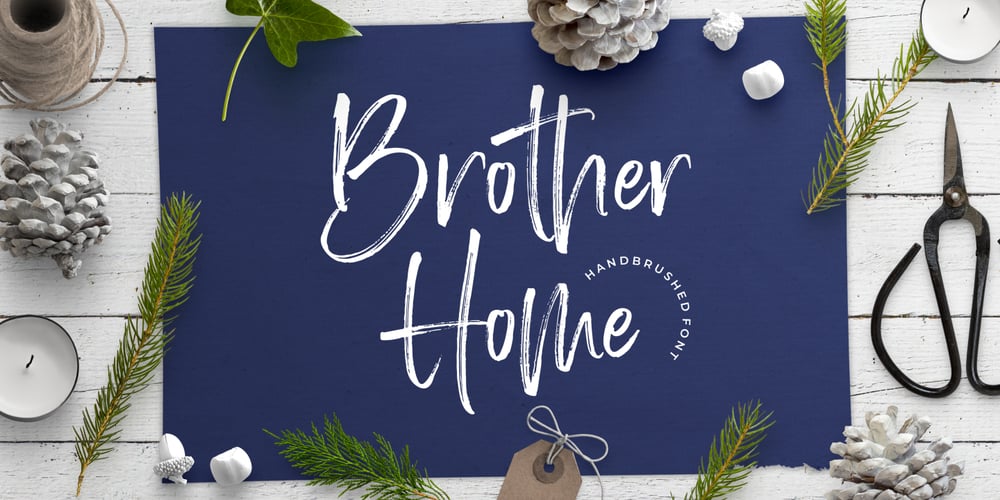
Brother Home Font Family was designed by Annas Alam Yahya and published by Letteralle. Brother Home contains 2 styles and family package options. Brother Home is a charming handwritten brush font that will bring an attractive feel to your designs. Brother Home includes 2 fonts : – Brother Home Regular: The main font with uppercase, lowercase, numbers, punctuation, and also multi-lingual support. – Brother Home Alternate: You can access alternative characters from the Regular weight via OpenType in your application, or you can also install this alternative weight. Brother Home Alternate will give you alternative characters, which will add a natural impression. That’s it! Please do let me know what you think, feel free to comment if there are issues or queries. Happy designing, Thank You!